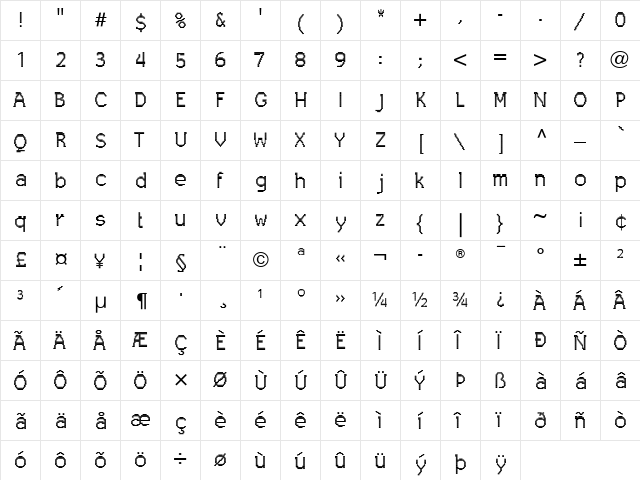
Leggodt LT Regular
Design Context for Leggodt LT Typeface
Leggodt LT offers clean, dependable letterforms without strong stylistic allegiance, making it a practical choice for designers who need flexibility. Its slender proportions lend an understated elegance to any composition.
Pro Tip: Pair Leggodt LT with a font of contrasting weight or personality to build a more expressive typographic hierarchy.